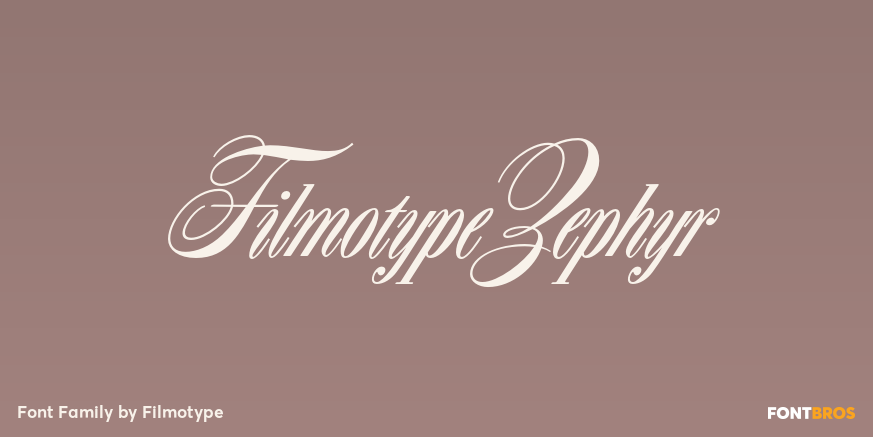
Filmotype Zephyr
About Filmotype Zephyr
Filmotype Zephyr combines the elegant script capital forms with a classic condensed italic roman to create a smart and stylish typeface. Originally released in the early 1950s, Filmotype Zephyr has been meticulously redrawn from the original font filmstrips…